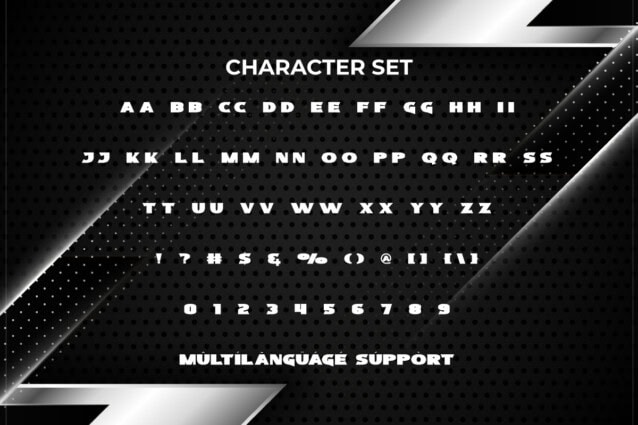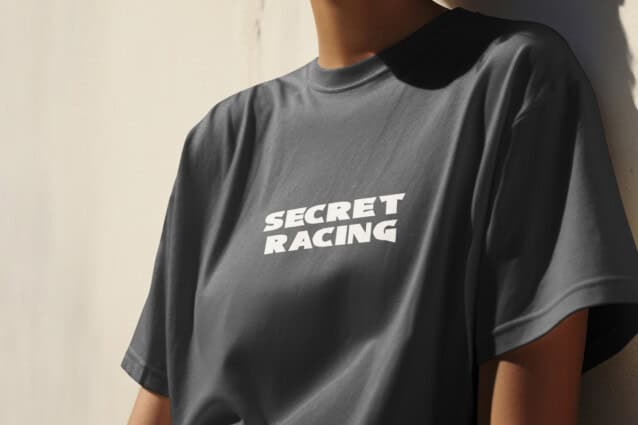
Secret Racing Font
Secret Racing Font is a breathtaking racing display font, created by RaisProject. This font has a combination of boxy and sharp edge on each corner of the character to make it amazing. It will be good for any designs, such as advertisement, brand image, custom design, invitation, label, marketing material, poster, product packaging, quotes, signage, stationery, website page, and more!